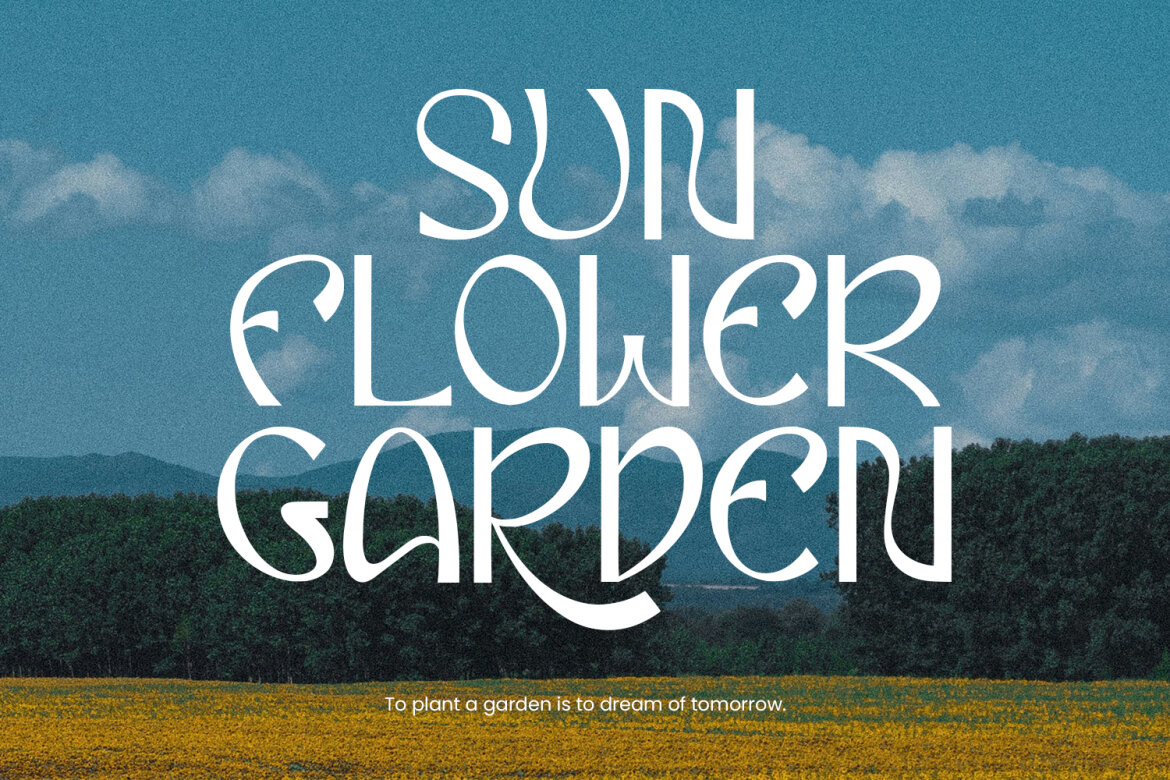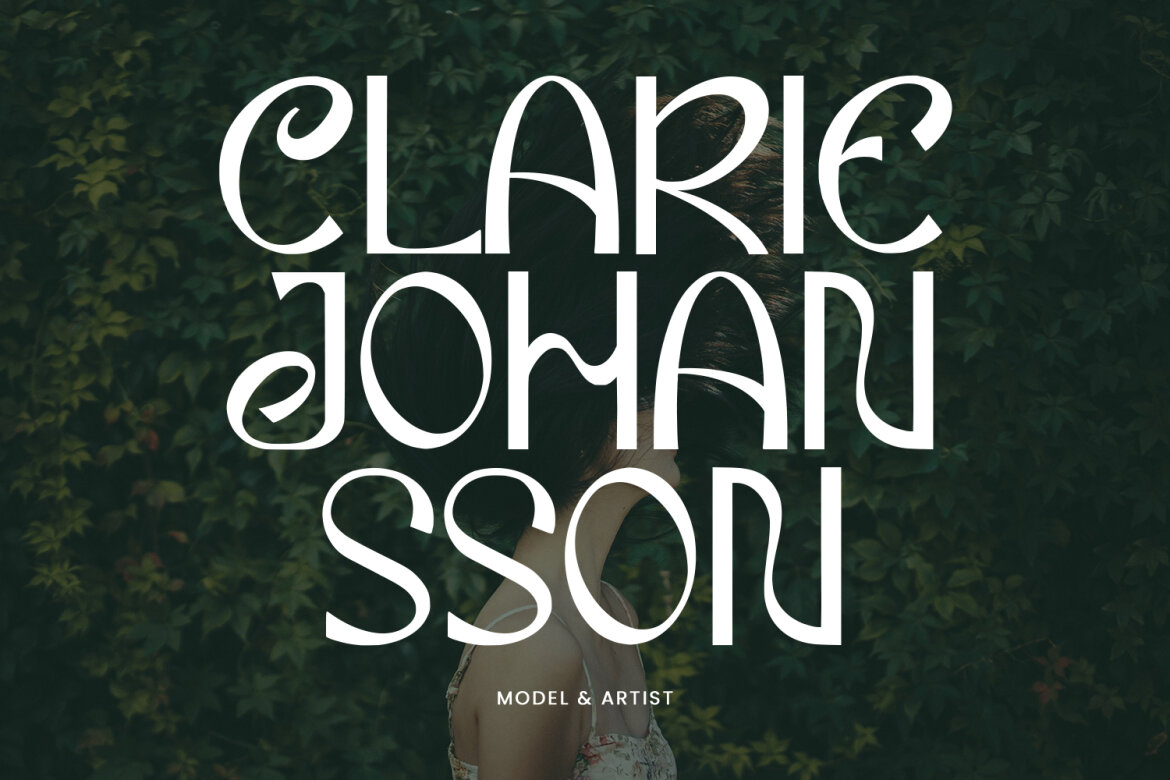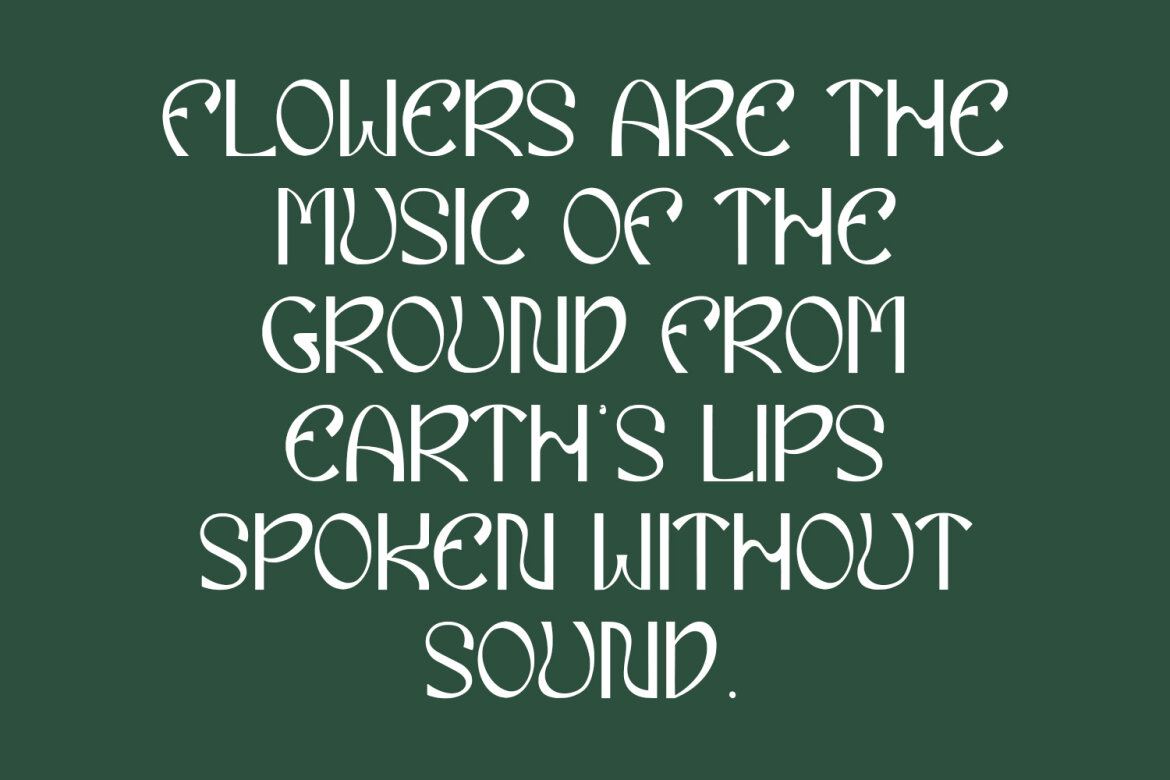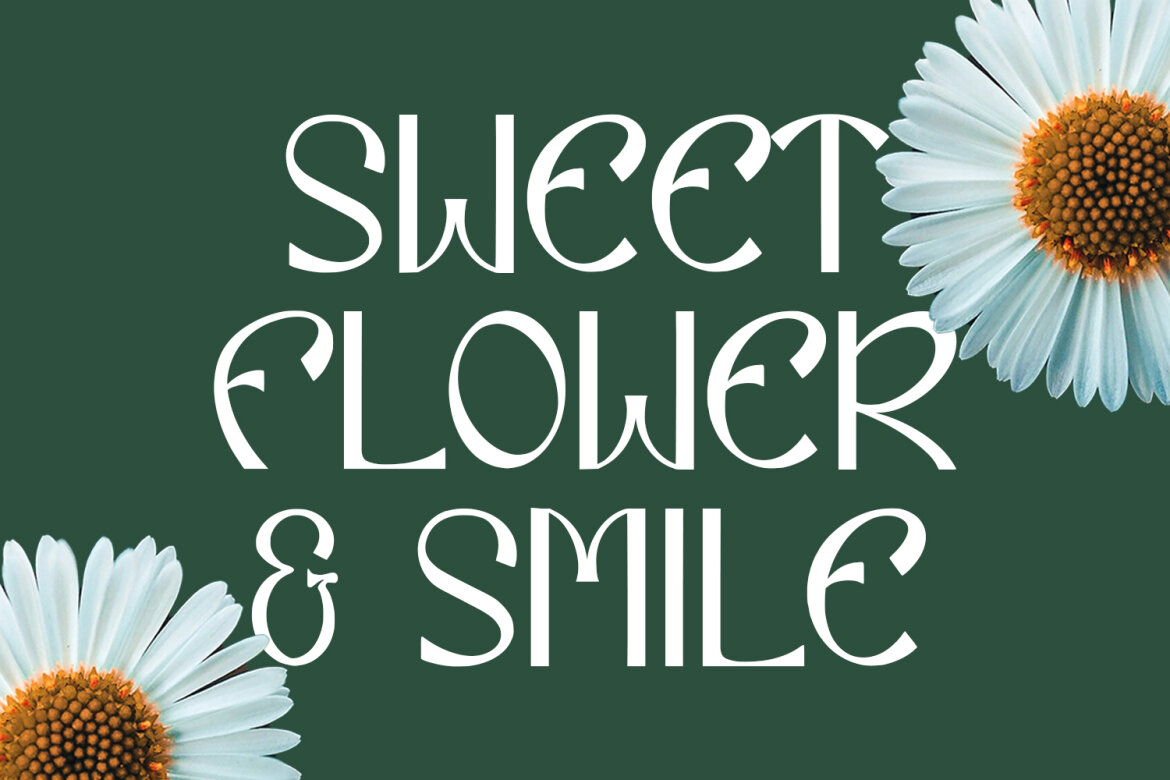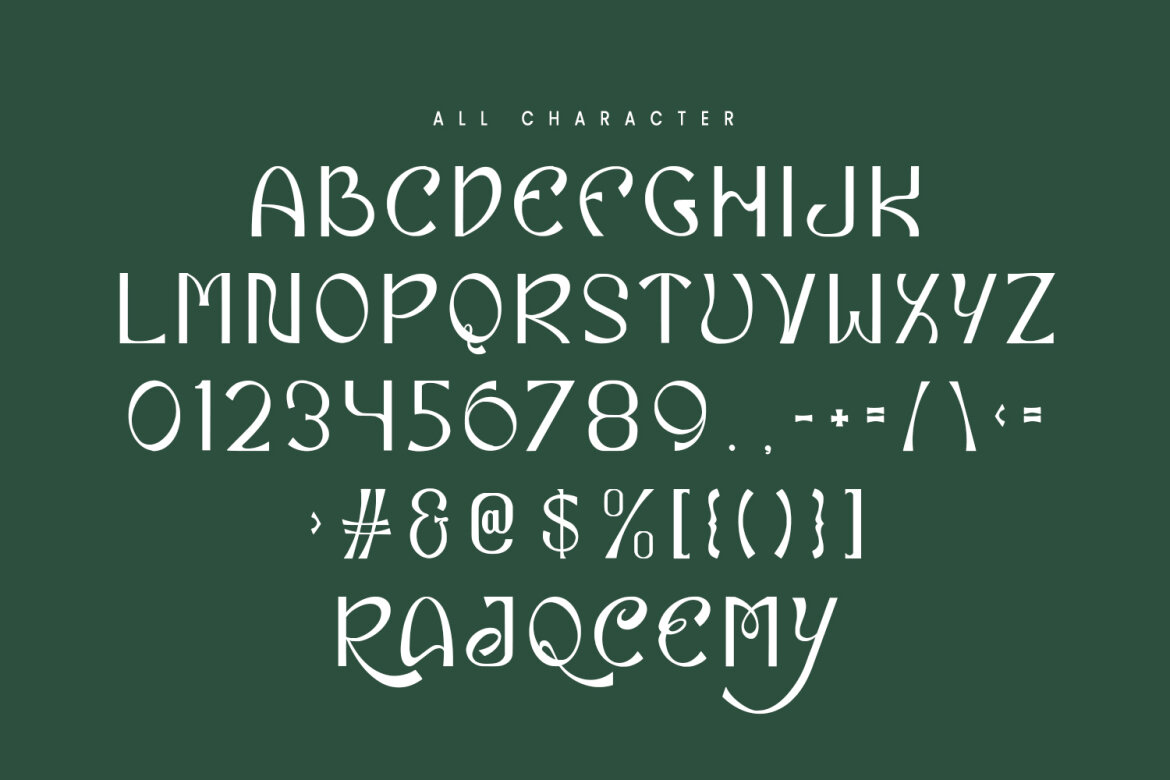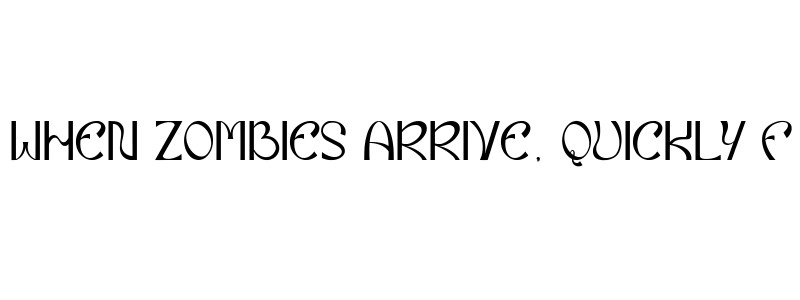
Eiclare Decorative FREE Display Font
Eiclare decorative display font. Heavy stroke, fun character with alternate. To give you an extra creative work. Eiclare decorative display font support multilingual language. This font is good for logo design, Social media, Movie Titles, Books Titles, a short text even a long text letter and good for your secondary text font with script or serif. Make a stunning work with Eiclare decorative display font.